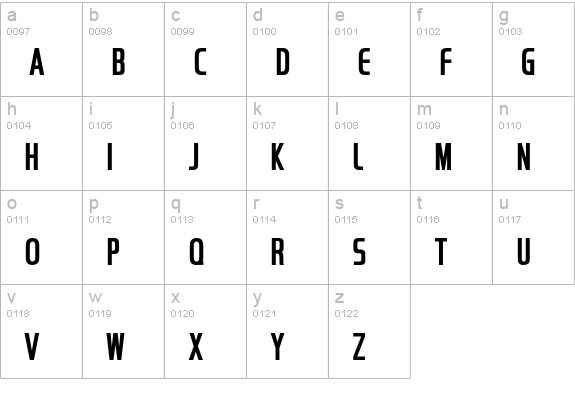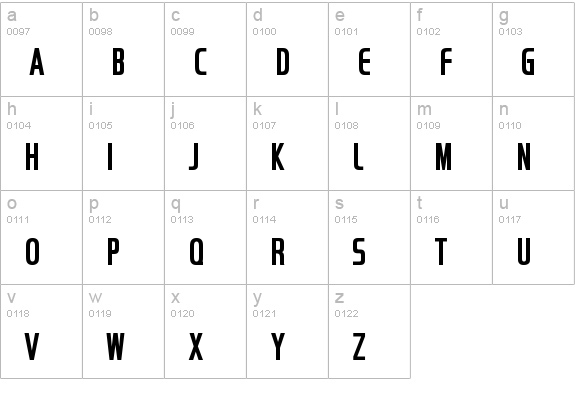
Handel Gothic Compress D Medium Font Details
Handel Gothic Compress D Medium is a balanced, medium-weight variant in the Handel typeface family \xE2\x80\x94 well suited to sub-headlines, navigation, and balanced editorial work.
Handel Gothic Compress D Medium is a stylish and versatile font that exudes a sense of modernity and sophistication. Its compressed letterforms give it a sleek and streamlined appearance, making it perfect for projects that require a contemporary touch. This font boasts a medium weight, striking the perfect balance between boldness and elegance. Its letterforms are meticulously crafted, with clean lines and sharp edges that ensure clarity and readability at any size. Handel Gothic Compress D Medium is ideal for a wide range of design applications. Whether you're creating eye-catching headlines, designing captivating logos, or crafting attention-grabbing advertisements, this font is sure to make a lasting impression. One of the best features of Handel Gothic Compress D Medium is that it is available for free download at FontsMarket.com. This means you can easily access and utilize this remarkable font without any financial barriers. Its availability for free makes it an excellent choice for both personal and commercial projects, allowing you to add a touch of sophistication to your designs without breaking the bank. So, if you're in search of a modern and stylish font that is freely available, look no further than Handel Gothic Compress D Medium. Its sleek design, versatile nature, and affordability make it a must-have for any designer or creative professional. Download it now at FontsMarket.com and unlock the endless possibilities it offers for your next project.